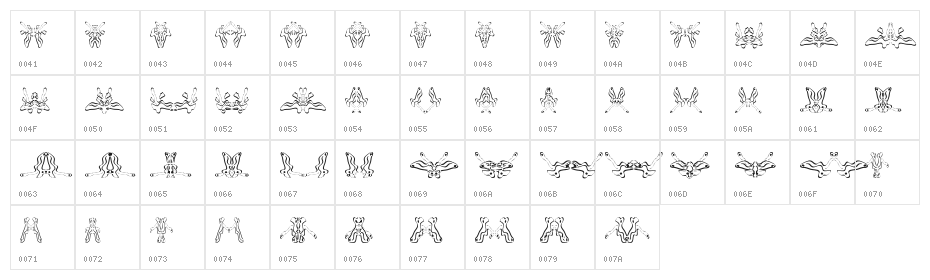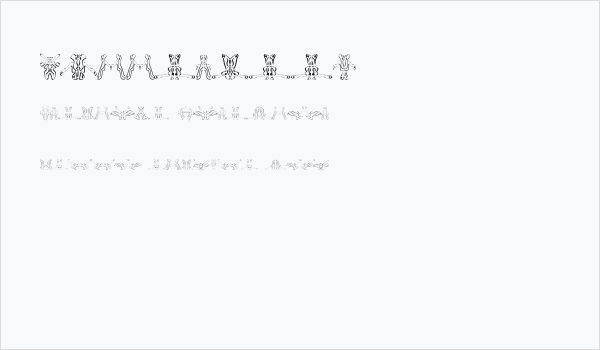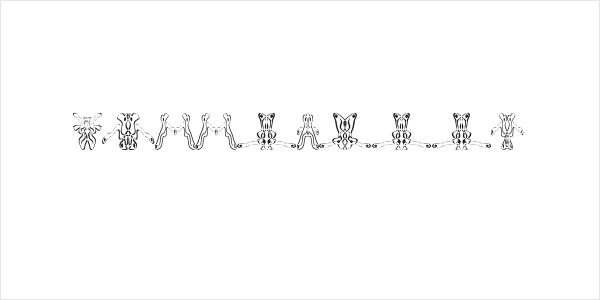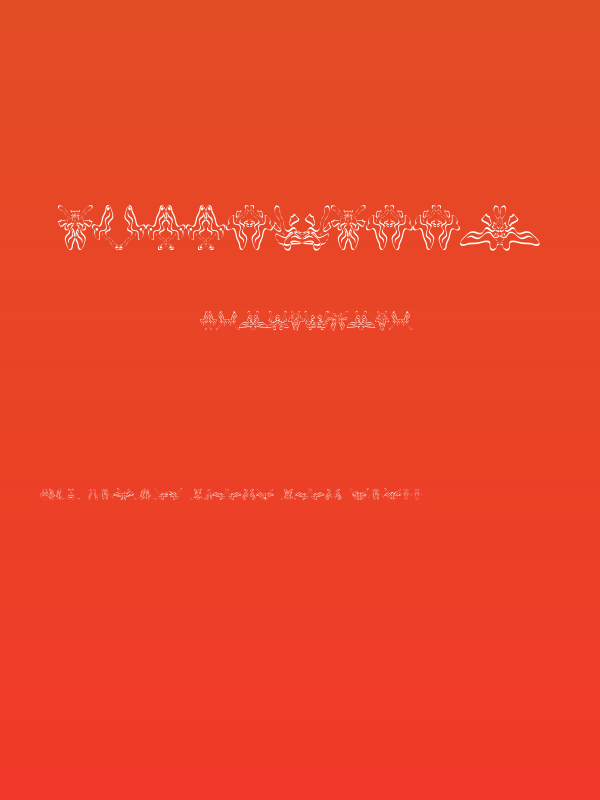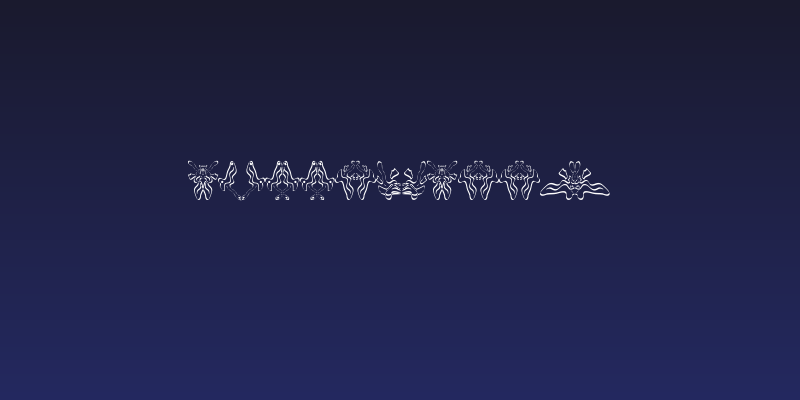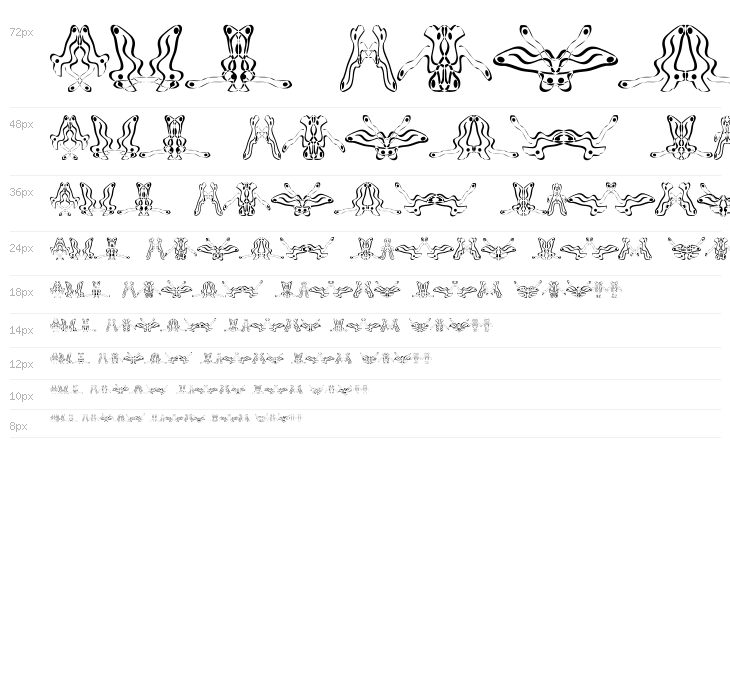
Butterbees Font
Butterbees Description
This font features a whimsical and decorative style, with each character resembling intricate butterfly or insect-like shapes. The design is highly ornamental, with elaborate curves and loops that give it a playful and artistic appearance. The characters are unique and abstract, making it more suitable for creative and decorative purposes rather than readability. The font's intricate details and flowing lines suggest a sense of movement and liveliness, making it ideal for projects that require a touch of fantasy or artistic flair.
| Use Case | Logos, Decorative headings, Artistic projects |
| Proposed Projects | Ideal for artistic projects, fantasy-themed designs, decorative headings, and unique branding elements. |